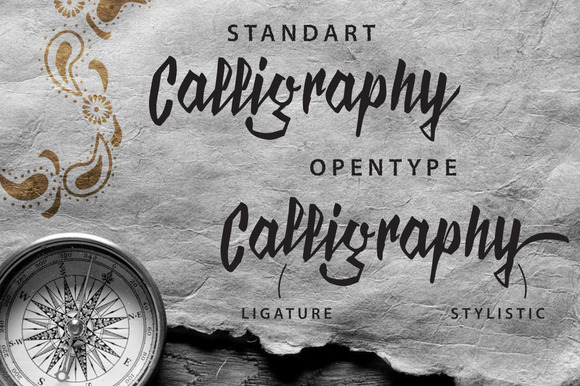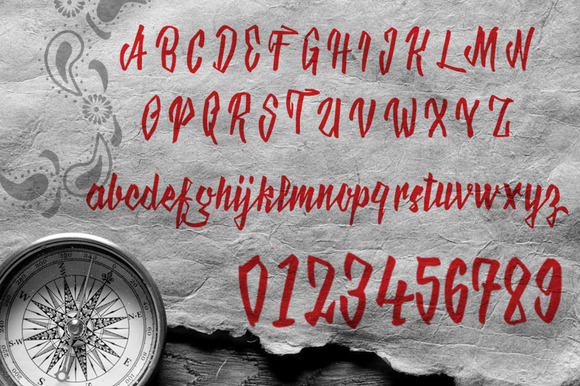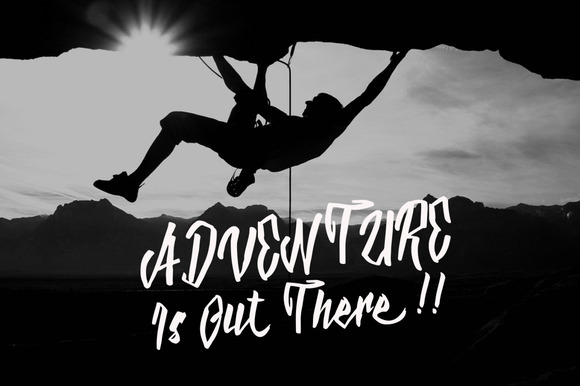
Scriptease Typeface
Introducing Scriptease Typeface
Scriptease Typeface is a beautiful handmade brush script give the natural looks. 262 glyphs and alternate character contain with opentype features.You can access all those alternate characters by using OpenType savvy programs such as Adobe Illustrator and Adobe InDesign.
Spontaneous, wild hand and imperfect flow give the natural looks. Great for Apparel Brand, any greeting cards, book cover, Painting design style, or any design that needs natural and personal touch. Mix and match the alternate characters to add an attractive message to your design.